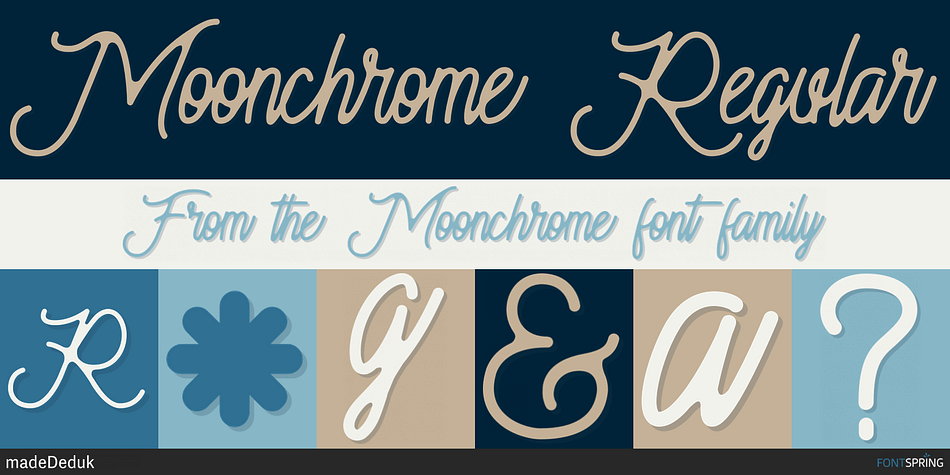
Moonchrome Regular
Moonchrome is a script font family. This typeface has four styles and was published by madeDeduk.
Moonchrome typeface font with 4 alternate variations. This monoline typeface perfect for poster design, book covers, merchandise, fashion campaigns, newsletters, branding, advertising, magazines, greeting cards, album covers, and quote designs and more.